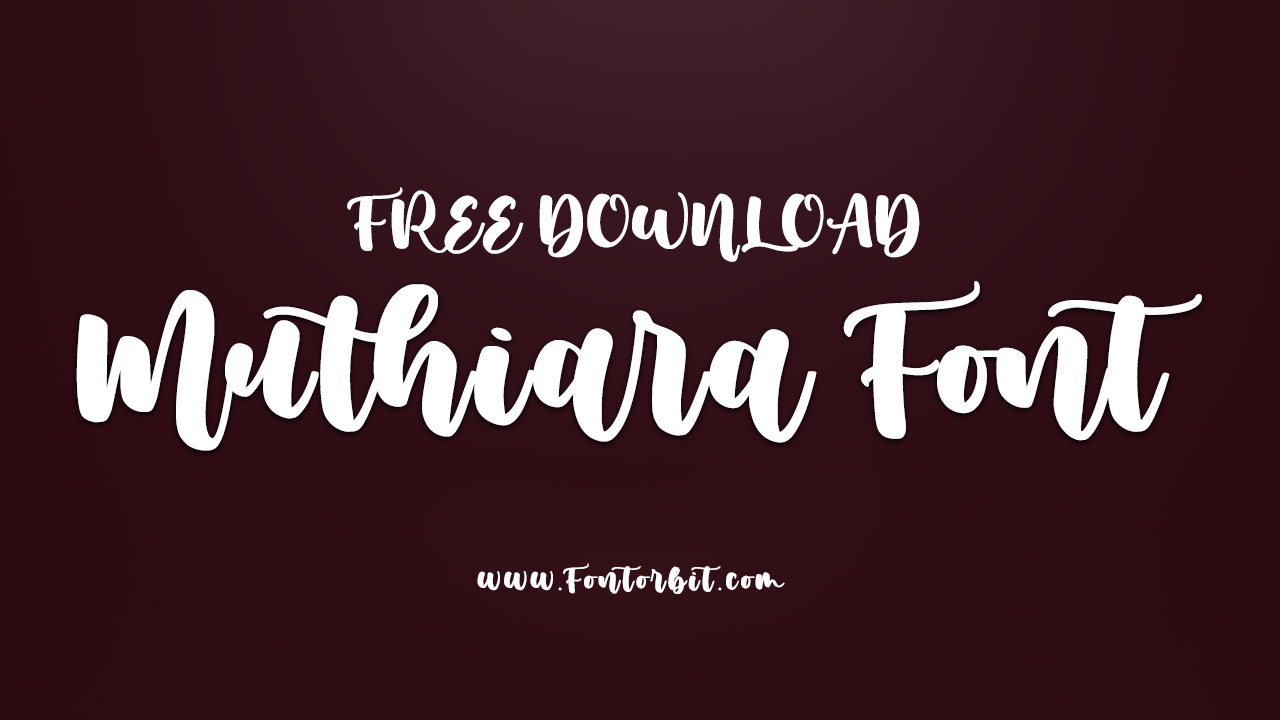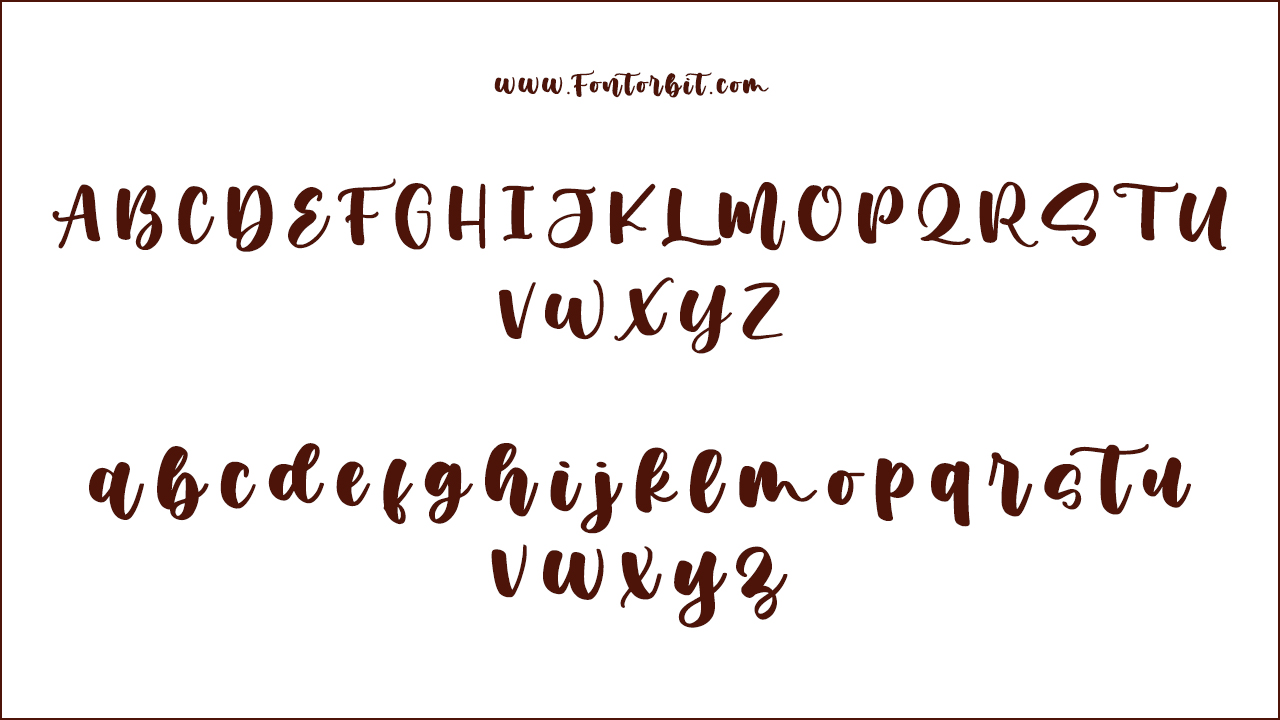
Muthiara font is a stylish and modern calligraphy font created by designer Abo Daniel. Known for its elegant, hand-drawn strokes and playful nature, Muthiara adds a unique charm to various design projects.
Whether used for personal projects or commercial designs (with a proper license), Muthiara’s fluid lines and graceful curves make it a popular choice for creatives looking to infuse their work with a sense of personal touch and sophistication.
Styles Of The Muthiara Font (Font Family)
- Muthiara Regular
Muthiara belongs to the script category, specifically within modern calligraphy, making it a versatile option for numerous creative applications.
The font is characterized by its free-flowing, handwritten appearance, offering a single style in the OpenType (.ttf) format. Muthiara features a comprehensive character set, including uppercase and lowercase letters, numerals, basic punctuation, and a range of special characters. This allows designers to craft a variety of typographic expressions that maintain a consistent aesthetic.
Ideal Applications For Muthiara Font
Muthiara’s artistic and whimsical nature makes it well-suited for a variety of design projects that benefit from a hand-crafted, personal feel. Its versatility and charm allow it to shine in applications such as:
- Book covers
- Wedding and Party Invitations
- Display Headers
- T-Shirts
- Greeting Cards
- Special Occasions
- Quotes
- Photo Overlays
Muthiara is a modern, versatile calligraphy font that enhances a wide range of design projects with its playful and elegant style. Whether you’re designing for print or digital media, Muthiara’s flowing strokes and graceful curves provide the perfect balance between sophistication and creativity.
Its suitability for everything from wedding invitations to branding materials makes it a go-to choice for designers looking to add a personal, artistic touch to their work.
Muthiara was designed by Abo Daniel, a well-known typeface designer. It was released in the early 2020s, gaining popularity quickly due to its elegant and modern calligraphy style.